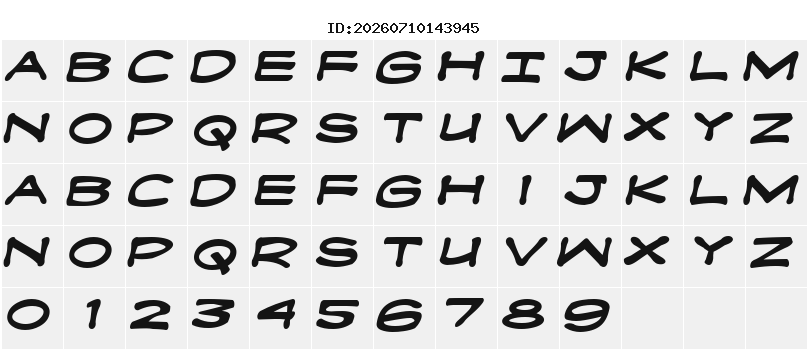
Fanboy Hardcore Preview
• Font Name: Fanboy Hardcore
• Full Font Name: Fanboy Hardcore Bold
About Fanboy Hardcore.ttf
Fanboy Hardcore.ttf is a modern, elegant sans-serif font designed for ultimate readability and visual harmony. Perfect for branding, headlines, web design, and print materials.